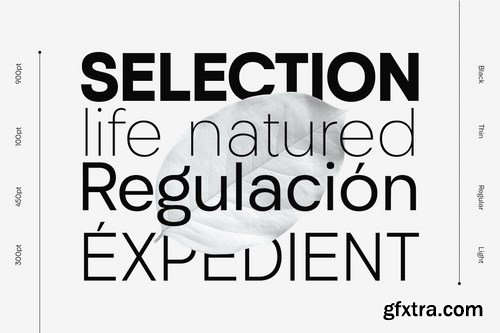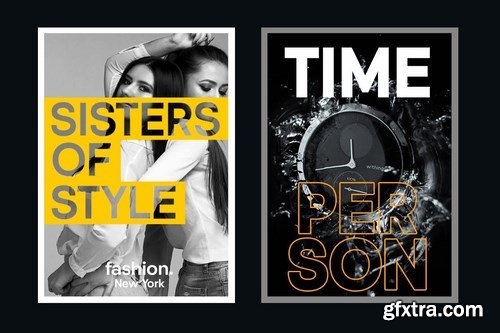
Givonic is a new geometric sans serif and clean variable font. The typeface is versatile to blend in your design- with 6 weight, ranging from regular, medium, thin, bold, semibold, extrabold, light, extralight and black & 18 styles + variable type to touch a lot of personality. Perfect anywhere you need a right finas touches for branding, publishing, titles, book, magazine , and use on UI/UX design.